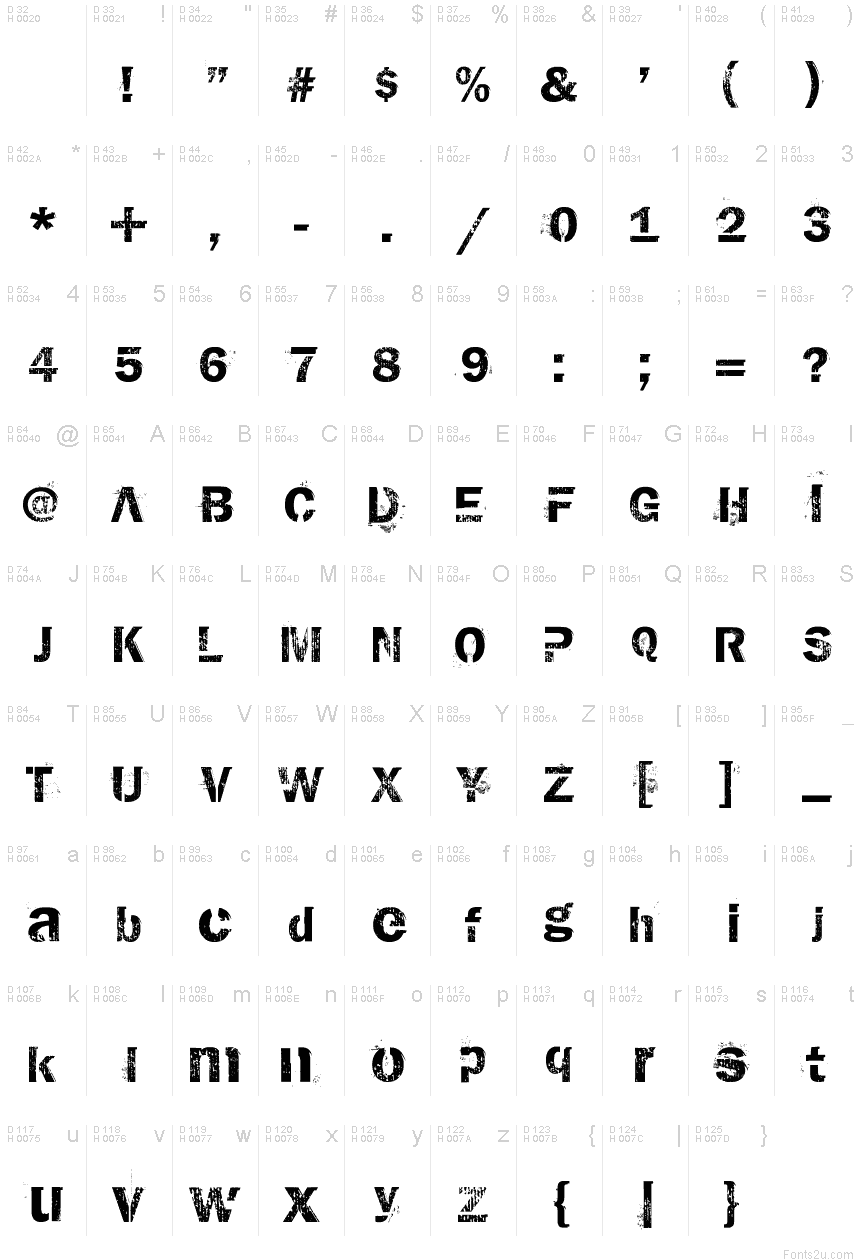
AnthologY
AnthologY font by Gyomsegs is a free eroded display typeface that looks like it’s been dragged through ink, concrete, and a photocopier one too many times—in the best way. Heavy black letterforms are chipped, splattered, and corroded, giving every word a loud, distressed texture that feels raw and tactile. The mix of thick strokes and rough white gaps makes headlines look bruised and battered, as if they’ve survived a long night on the city walls.
Using AnthologY, your text doesn’t whisper; it shouts across gig posters, album covers, horror titles, streetwear graphics, zines, and gritty book jackets. This free font thrives at large sizes where its broken edges and noisy surface can really punch through. Pair AnthologY with a clean, light sans serif for body copy and let this eroded typeface handle the short, punchy words that need to grab attention.